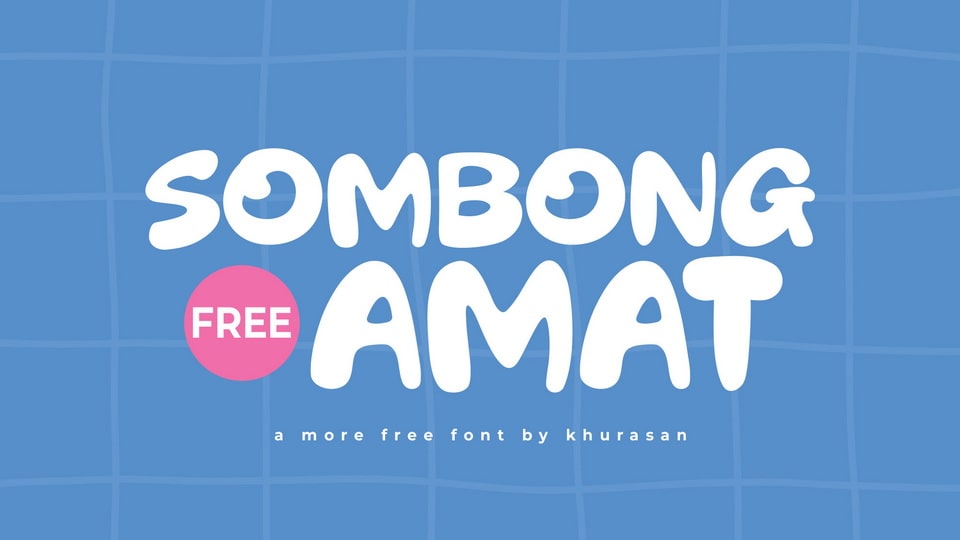
Download Sombong Amat font, a bubbly and bold hand-drawn typeface full of confidence and charm. Its soft, rounded strokes and whimsical proportions give it a lighthearted, almost cartoonish feel that radiates positivity.